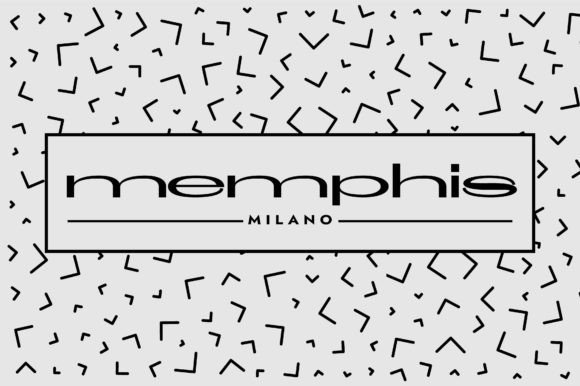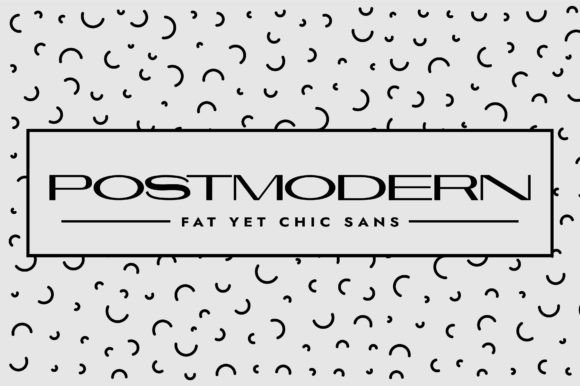
Unlock the Power of Geomax Font: Elevate Your Designs
Have you ever stared at a blank canvas, eager to bring your creative vision to life, only to be held back by a lack of the perfect font? We’ve all been there. But what if you could infuse your designs with a touch of sophistication and elegance, without sacrificing impact?
Enter the Geomax Font, a masterful blend of geometric and postmodern design elements that will elevate your titles and headers to new heights. Despite its robust and wide aspect, the Geomax Font is surprisingly delicate and chic, making it the perfect choice for adding a special touch to your creations.
As a designer, you know how crucial the right font can be in grabbing attention and conveying your message. That’s why we’re excited to share the Geomax Font with you, and explore its many uses and benefits in the world of design.
Geomax Font Key Features
- Font Family: Geomax is a sans-serif font family designed for digital use, making it ideal for on-screen display.
- Character Set: Geomax Font includes a wide range of characters, including Latin, Cyrillic, and Greek alphabets, as well as punctuation and symbols.
- Unique Characteristics: Geomax Font features a unique geometric shape and a clean, modern design, making it an ideal choice for contemporary designs and digital interfaces.
Geomax Font Review
I recently had the chance to work with the Geomax Font, and I have to say, it’s a font that’s full of potential ✨. The clean, modern design is perfect for digital applications, and the bold weights make it ideal for headlines.
One of the standout features of Geomax is its versatility. It’s suitable for a wide range of projects, from corporate branding to creative projects. The font is also highly legible, even at small font sizes.
- ✨ Clean and modern design
- ✨ Bold weights perfect for headlines
- ✨ Highly legible, even at small font sizes
- ✨ Versatile, suitable for a wide range of projects
However, I did encounter some limitations ⚠️. The font is not ideal for projects that require a more traditional, serif look. Additionally, some of the italic weights can appear slightly inconsistent.
- ⚠️ Not ideal for projects requiring a traditional, serif look
- ⚠️ Some italic weights can appear inconsistent
Overall, I think Geomax is a solid choice for designers looking for a modern, clean font. While it may not be perfect, its versatility and high legibility make it a great addition to any design project.
Geomax Font is perfect for creating modern and minimalist designs in Canva, such as logos, business cards, and social media graphics.
Geomax Font is ideal for creating intricate and detailed designs in Adobe Photoshop or Illustrator, such as typography-based art and graphics.
Geomax Font is perfect for creating professional and modern presentations and documents in PowerPoint or Word.
Geomax Font is versatile and can be used in a variety of design projects. Some common use cases include:
- Logo design
- Business cards
- Social media graphics
- Typography-based art and graphics
- Presentations and documents
Alternatives to Geomax Font for Designers
Montserrat is a sans-serif font designed for digital use, with a geometric feel similar to Geomax Font. It’s ideal for use in modern designs, logos, and user interfaces. Montserrat has a slightly more rounded feel and is more readable at smaller font sizes compared to Geomax Font.
2. Inter
Inter is a modern sans-serif font designed for legibility and versatility. It’s a great alternative to Geomax Font for body text and headings, offering a clean and minimalist aesthetic. Inter is more condensed and has a more subtle feel than Geomax Font.
Open Sans is a popular sans-serif font designed for digital use, offering a clean and friendly feel. It’s a great alternative to Geomax Font for body text and is highly legible at various font sizes. Open Sans has a more rounded feel and is more suitable for use in long blocks of text.